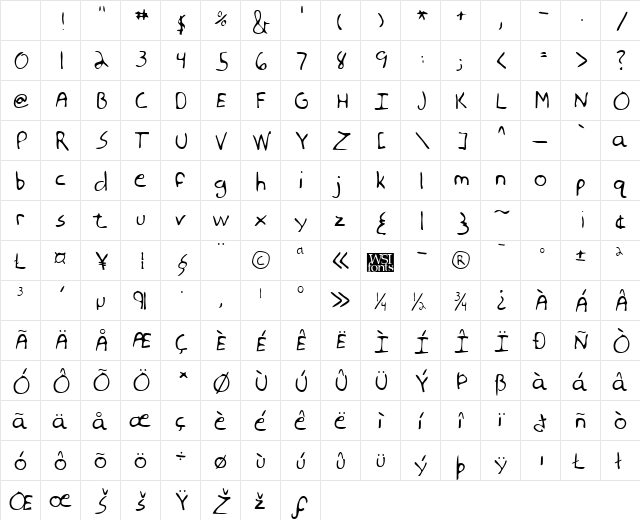
LawfordsHand Regular Free Font
LawfordsHand Regular
Design Context for LawfordsHand
LawfordsHand flows with the natural rhythm of handwritten lettering, making it ideal for designs that call for warmth and personal expression.
Font Pairing: Combine LawfordsHand with a simple geometric sans for maximum contrast - the tension between flowing curves and clean structure is a classic typographic pairing.
Pro Tip: Use LawfordsHand for short runs of text - names, titles, or taglines. Extended body copy in script faces tires the eye quickly.